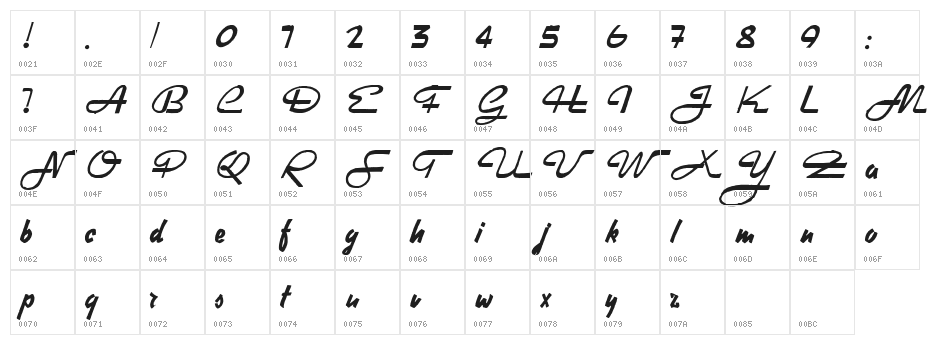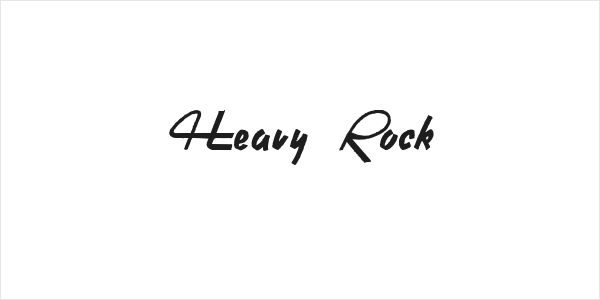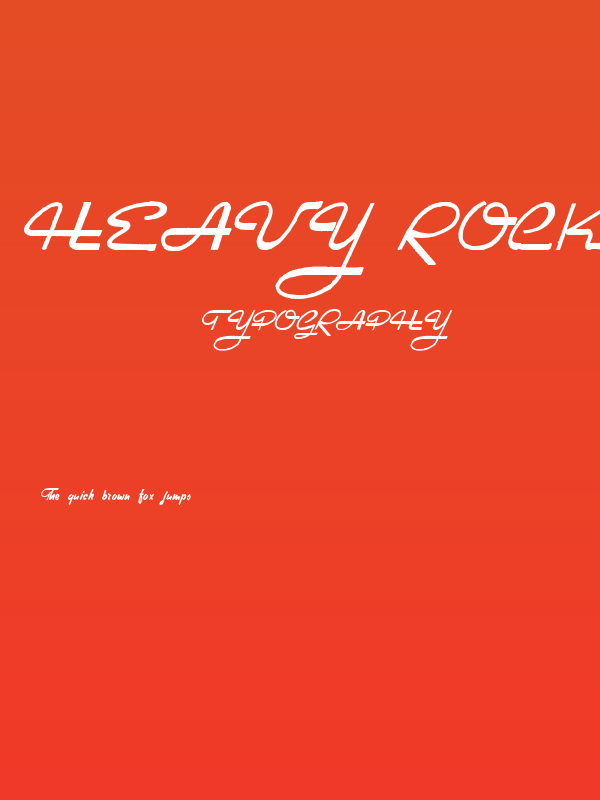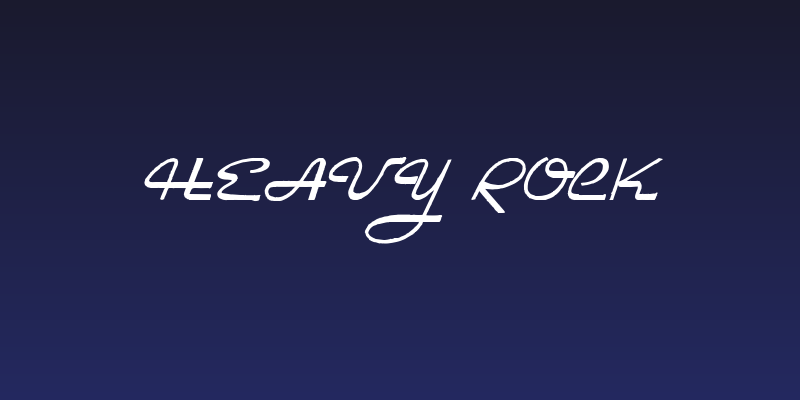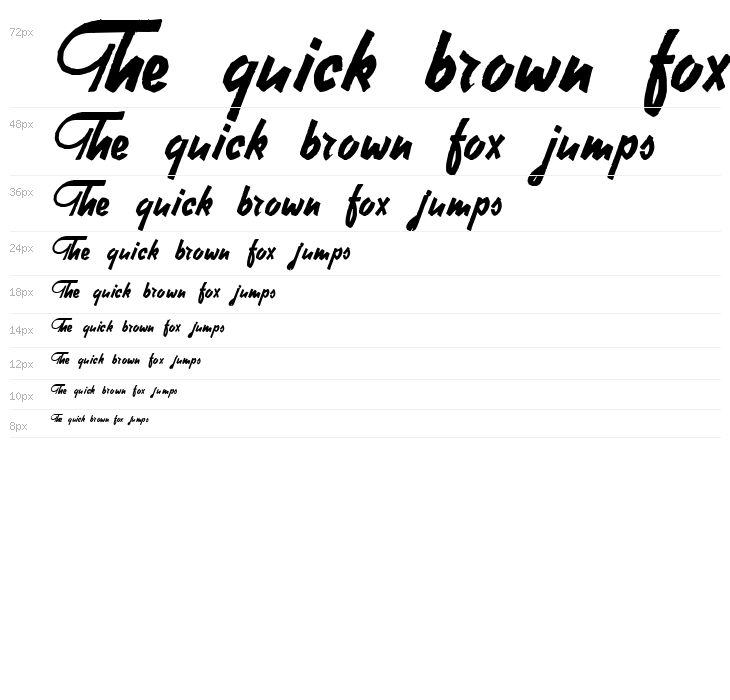
Heavy Rock Font
Heavy Rock Description
This font features a dynamic and energetic script style, characterized by its flowing, cursive uppercase letters and bold, impactful lowercase letters. The uppercase letters exhibit a sense of movement with their elegant curves and loops, while the lowercase letters are more robust and solid, providing a striking contrast. The numerals are bold and clear, maintaining the overall energetic feel of the font. Special characters are designed to complement the script style, adding to the font's versatility. This font is ideal for projects that require a bold and expressive touch, capturing attention with its unique blend of elegance and strength.